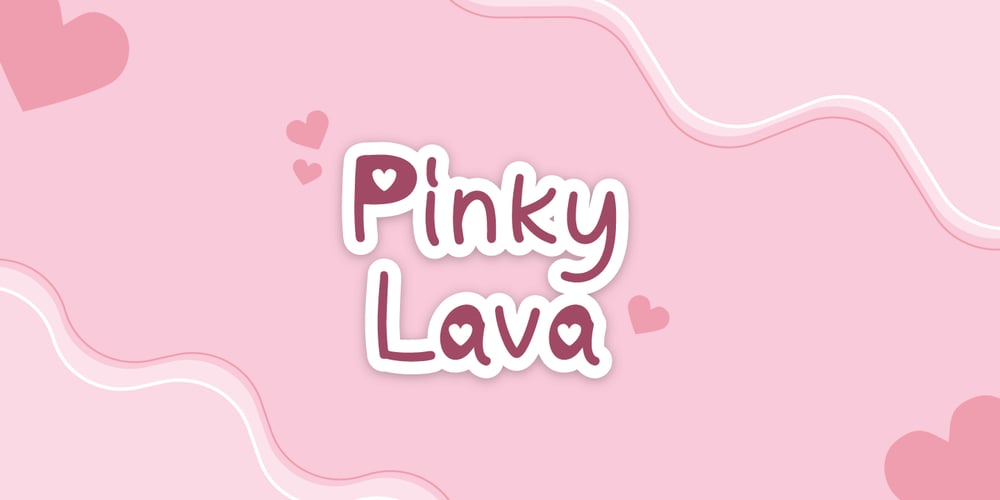
Pinky Lava Font Family was designed by Fadli Ramadhan Iskandar and published by Attype Studio. Pinky Lava contains 3 styles and family package options. Introducing Pinky Lava font, a beautiful typeface that features love-shaped holes in some of its letters.This font comes in both italic and display versions, giving you more flexibility in your design projects. With its multilingual support, Pinky Lava is perfect for creating designs in various languages. This font adds a touch of playfulness and romance to any project, making it ideal for creating natural handwritten logos and designs with love and Valentine’s Day themes. Whether you’re designing a greeting card, wedding invitation, or love-themed poster, Pinky Lava is sure to impress with its unique love-shaped holes and its playful yet professional vibeWhat’s Included :- Pinky Lava Family Font- Multilingual Support Thank you for purchasing premium fonts from Attype Studio. Follow and explore our work on Pinterest & Instagram. If you have any question, don’t hesitate to contact us.